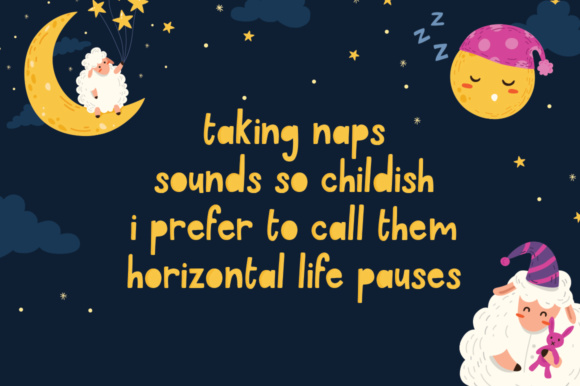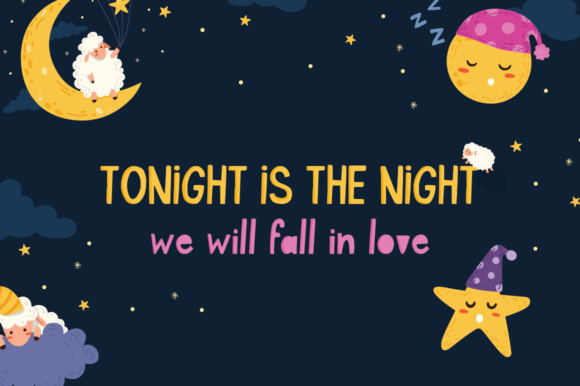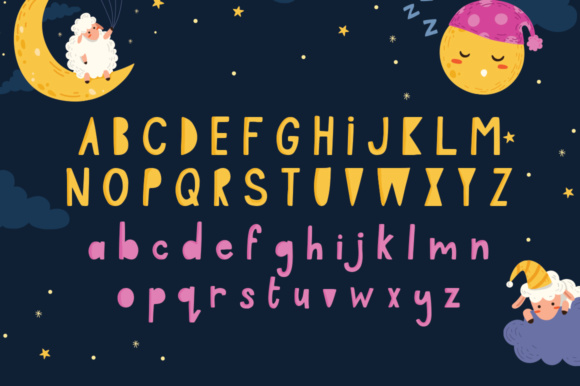
Introduction to Hello Lijo Font
Hello Lijo is an adorably cute font that has a child-like whimsy about it.
Completely hand written and full of unique characters, you’ll love using it for your everyday designs Plays well with others, including scripts.